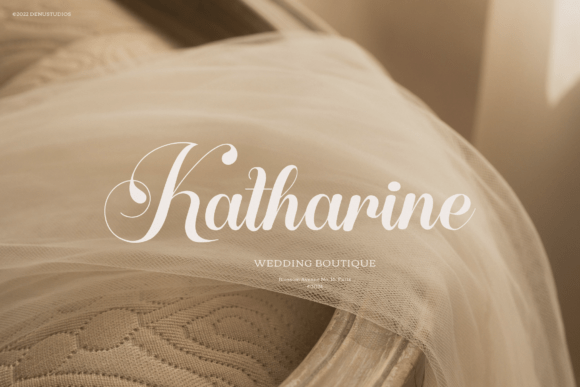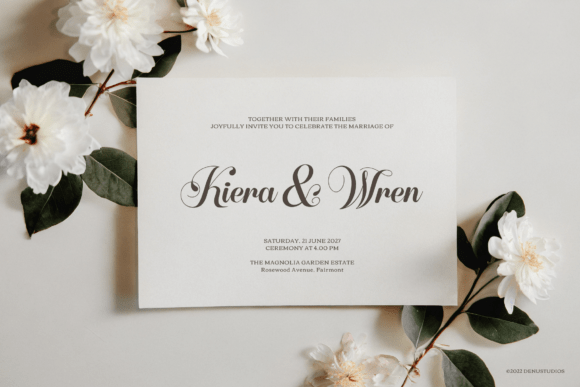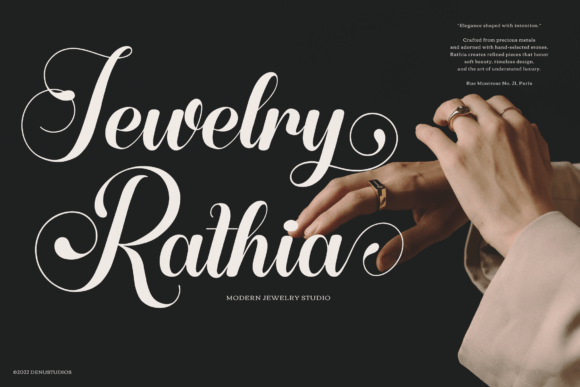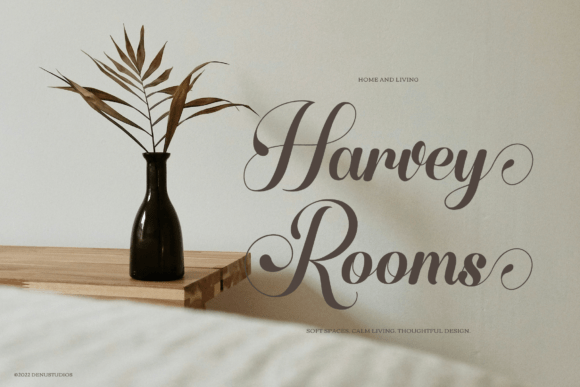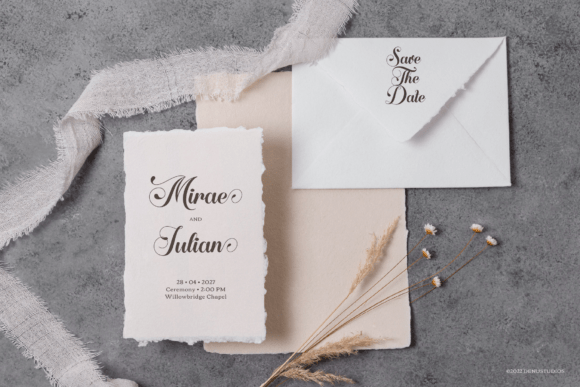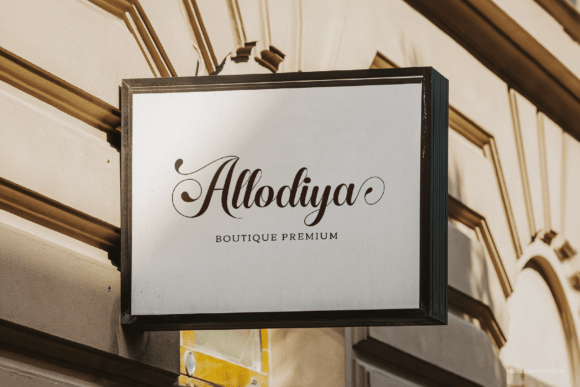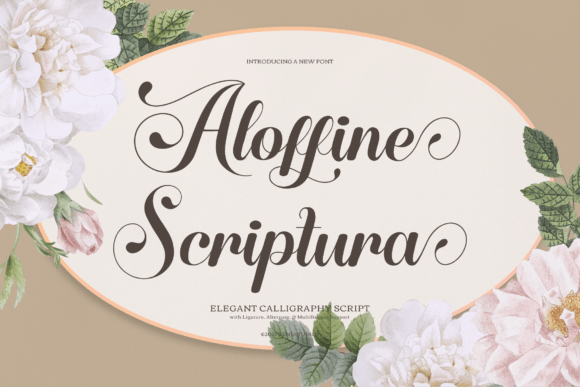
🖋️ Aloffine Scriptura: Elevate Your Designs with Elegant Calligraphy
Step into a world of classic romance and refined elegance with Aloffine Scriptura, a stunning calligraphy script that embodies the timeless artistry of a master penman. This exquisite font is designed to add a touch of sophistication and luxury to your designs, making it perfect for projects that demand a high-end aesthetic.
Unparalleled Elegance and Sophistication
Aloffine Scriptura is a masterpiece of flowing lines, graceful ascenders, and beautifully embellished swashes. Its intricate details and flourishing characters ensure an immediate sense of quality and formal beauty, making your typography look less like text and more like intentional, decorative artwork.
With a wealth of ligatures and alternates, Aloffine Scriptura gives your text a truly custom, handcrafted appearance. This font is perfect for designers and crafters looking to add a touch of elegance and sophistication to their projects, whether it’s wedding invitations, premium packaging, fine dining menus, sophisticated book covers, or upscale branding.
Aloffine Scriptura is an incredibly versatile font, suitable for a wide range of design applications. Here are just a few ideas to get you started:
- Wedding Invitations: Make your wedding invitations truly unforgettable with Aloffine Scriptura’s elegant calligraphy.
- Premium Packaging: Elevate your brand’s packaging with a luxurious and sophisticated font that exudes high-end quality.
- Fine Dining Menus: Add a touch of refinement and elegance to your restaurant’s menu with Aloffine Scriptura.
- Sophisticated Book Covers: Make your book stand out from the crowd with a beautifully designed cover featuring Aloffine Scriptura.
- Upscale Branding: Use Aloffine Scriptura to create a luxurious brand identity that reflects your company’s values and style.
PUA-Encoded for Easy Use
Aloffine Scriptura is PUA-encoded, making it easy to use and access a wide range of characters, ligatures, and alternates. This ensures that you can effortlessly create beautiful, custom typography that elevates your designs to the next level.
Why Choose Aloffine Scriptura?
With Aloffine Scriptura, you can:
- Elevate your designs: Add a touch of luxury and sophistication to your projects with this exquisite calligraphy script.
- Stand out from the crowd: Use Aloffine Scriptura to create unique and memorable designs that set you apart from the competition.
- Save time: With its PUA-encoded design, Aloffine Scriptura is easy to use and doesn’t require complicated setup or technical expertise.
Aloffine Scriptura is a truly exceptional font that offers a world of creative possibilities for designers and crafters. Its elegant calligraphy, sophisticated design, and versatility make it the perfect choice for projects demanding a luxurious and high-end aesthetic. Whether you’re looking to create wedding invitations, premium packaging, or upscale branding, Aloffine Scriptura is the perfect tool to help you achieve your design goals.